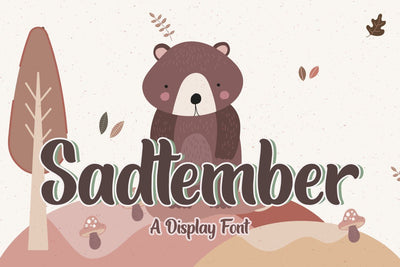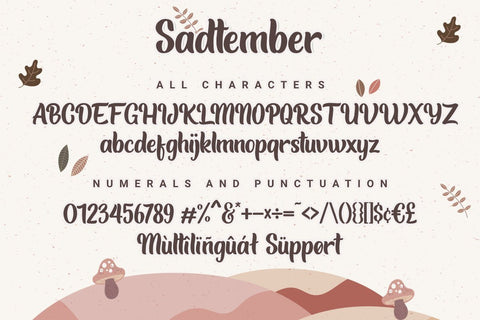
Sadtember | Display Font
Sadtember is a bold semi display. Its unique character is very suitable for logos, packaging, emblem, t-shirt, branding, and other creative design needs. It comes with all uppercase, lowercase, numeral and supports multilingual language
Basic Latin A-Z and a-z
Numbers and punctuation
Multilingual support from Sadtember:
ÀÁÂÃÄÅÆÇÈÉÊËÌÍÎÏÑÒÓÔÕÖØŒÙÚÛÜÝŸÞÐŁŠŽàáâãäåæçèéêëìíîïñòóôõöøœùúûüýÿþðłšžß